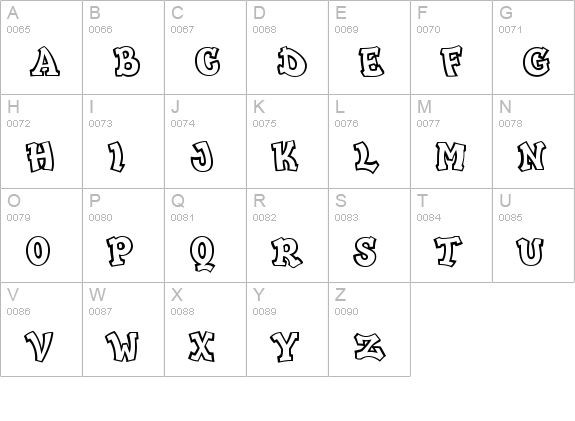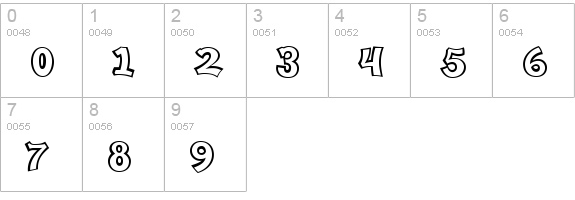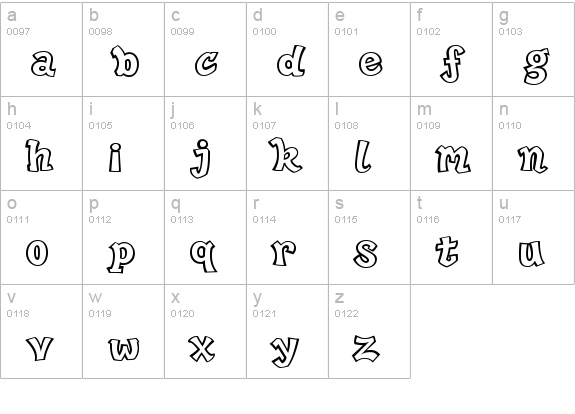
HipHop-Inline Font Details
HipHop-Inline font is a modern and stylish typeface that exudes energy and creativity. Its sleek inline design gives a dynamic and edgy look that is perfect for music-related projects, posters, and branding materials. This versatile font is sure to make your text pop and stand out from the crowd. The best part about HipHop-Inline font is that it is completely free to download at FontsMarket.com. This means you can add a touch of urban flair to your designs without breaking the bank. Whether you're a graphic designer, artist, or simply a typography enthusiast, HipHop-Inline font is a must-have addition to your font collection. With its bold and eye-catching style, HipHop-Inline font is sure to make a statement and leave a lasting impression. Download it today and let your creativity flow with this fantastic font that is as unique as you are.